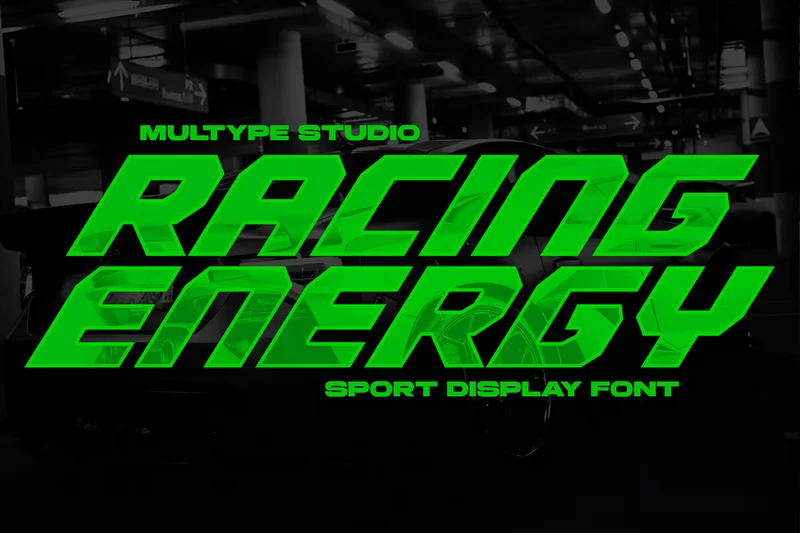
Racing Energy Sport Display Font
Racing Energy is a font with a racing theme, bold, big, strong and fast. Even without the corner cut effect. This font still looks very fast and powerful. Because with consistent bold and slanted shapes. Racing Energy is perfect for racing product logos, racing game covers, sporting events, automotive posters, automotive magazine covers, branding, product designs, labels and other creative projects.